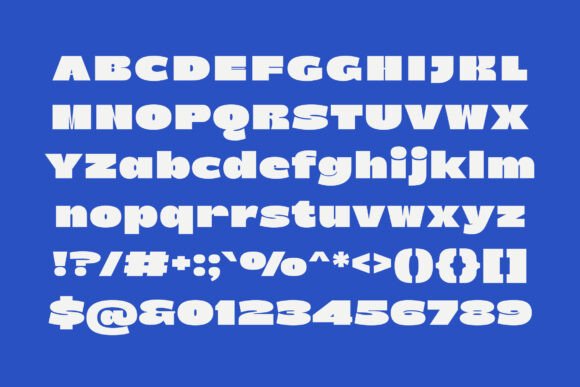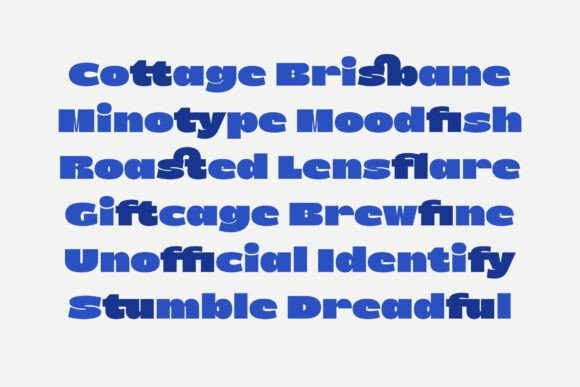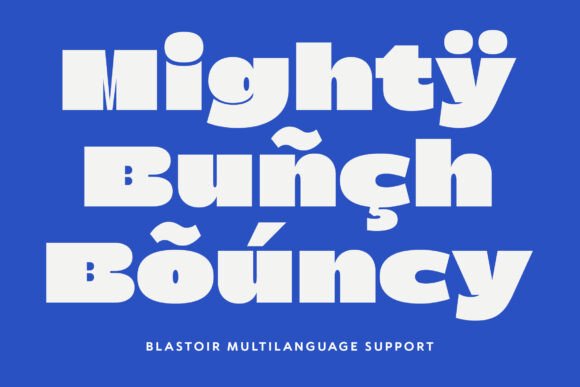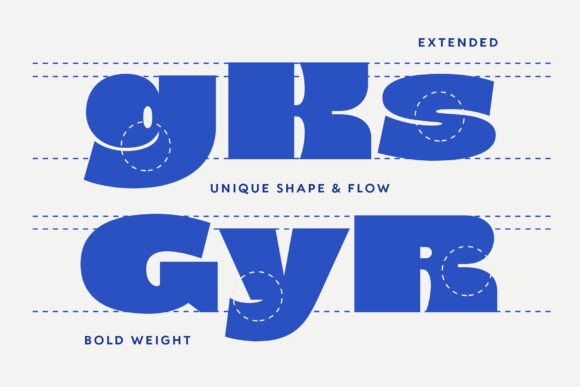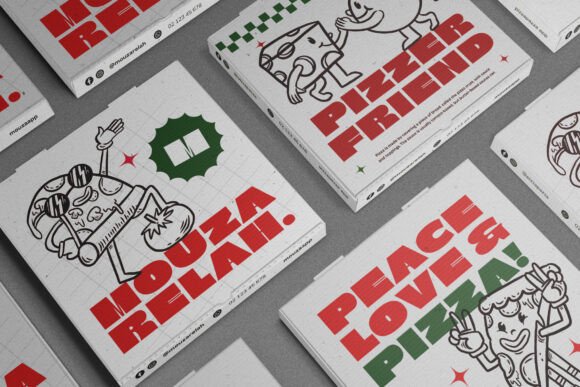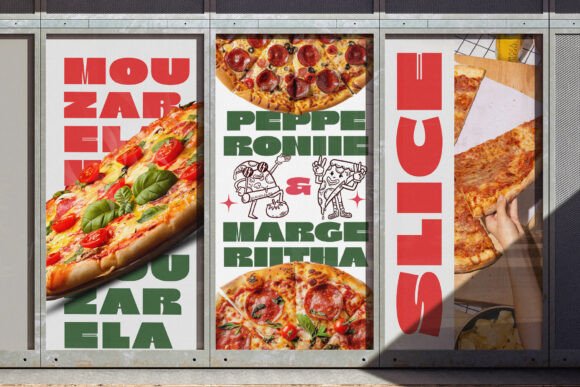
Introducing Blastoir Font: The Ultimate Bold Sans Serif for Impactful Designs
In the world of typography, fonts play a crucial role in conveying the message and tone of a design. For designers and crafters looking to make a powerful visual statement, Blastoir Font is an excellent choice. This expanded bold sans serif font is designed to bring a commanding and impactful look to various projects, including branding, headlines, posters, packaging, logo designs, merchandise, apparel, advertising campaigns, and more.
The Perfect Blend of Strength and Modernity
Blastoir Font boasts rounded letterforms and bold strokes, making it a perfect blend of strength and modernity. The font’s unique design elements give it a distinctive edge, setting it apart from other sans serif fonts. The rounded letterforms add a touch of friendliness and approachability, while the bold strokes convey confidence and power.
One of the standout features of Blastoir Font is its versatility. The font comes with a complete set of uppercase and lowercase letters, punctuation, numerals, and ligatures. This extensive character set makes it suitable for a wide range of design projects. Whether you’re working on a logo design, a poster, or a packaging project, Blastoir Font has got you covered.
Customization Options
Blastoir Font also offers stylish alternates for added customization. This feature allows designers to experiment with different variations of the font, giving them more creative control over their designs. The alternates can be used to create a unique look or to match the font to the tone and style of the project.
Ideal for Various Design Projects
Blastoir Font is ideal for various design projects that demand a commanding and impactful look. Some of the projects that can benefit from this font include:
- Branding: Create a strong brand identity with Blastoir Font. Its bold and modern design makes it perfect for logos, business cards, and other branding materials.
- Headlines: Make a statement with Blastoir Font’s bold and attention-grabbing headlines. It’s perfect for newspapers, magazines, and online publications.
- Posters: Create eye-catching posters with Blastoir Font. Its bold design and rounded letterforms make it perfect for posters, flyers, and brochures.
- Packaging: Give your packaging a bold and modern look with Blastoir Font. It’s perfect for product labels, packaging materials, and more.
- Logo Designs: Create a unique and memorable logo with Blastoir Font. Its bold design and stylish alternates make it perfect for logos and branding materials.
- Merchandise: Create eye-catching merchandise with Blastoir Font. It’s perfect for t-shirts, hats, and other promotional items.
- Apparel: Give your apparel a bold and modern look with Blastoir Font. It’s perfect for fashion brands, sports teams, and more.
- Advertising Campaigns: Make a statement with Blastoir Font’s bold and attention-grabbing advertising campaigns. It’s perfect for billboards, print ads, and online ads.
Why Choose Blastoir Font?
So, why choose Blastoir Font for your design projects? Here are some compelling reasons:
- Unique Design: Blastoir Font has a unique design that sets it apart from other sans serif fonts.
- Versatility: The font comes with a complete set of characters, making it suitable for a wide range of design projects.
- Customization Options: Blastoir Font offers stylish alternates for added customization.
- Impactful Look: The font’s bold design and rounded letterforms make it perfect for projects that demand a commanding and impactful look.
In conclusion, Blastoir Font is an excellent choice for designers and crafters looking to make a powerful visual statement. Its unique design, versatility, and customization options make it perfect for various design projects. Whether you’re working on a branding project, a poster, or a packaging design, Blastoir Font is sure to deliver a commanding and impactful look.